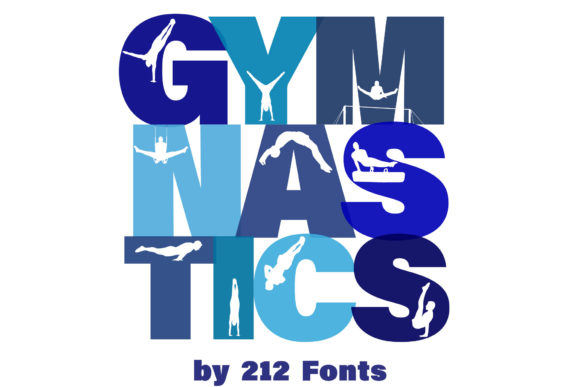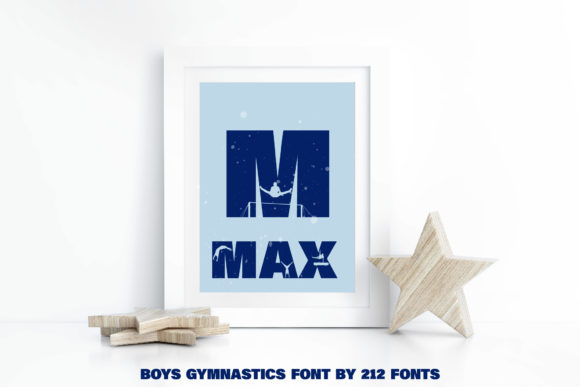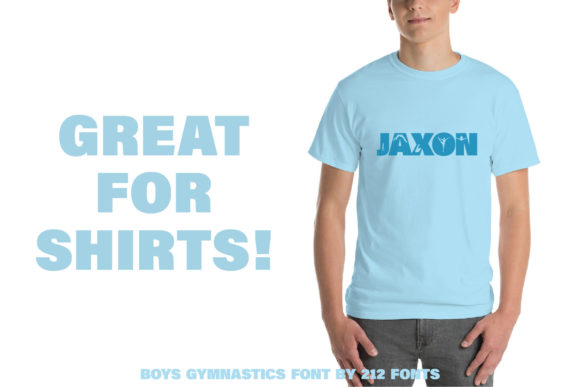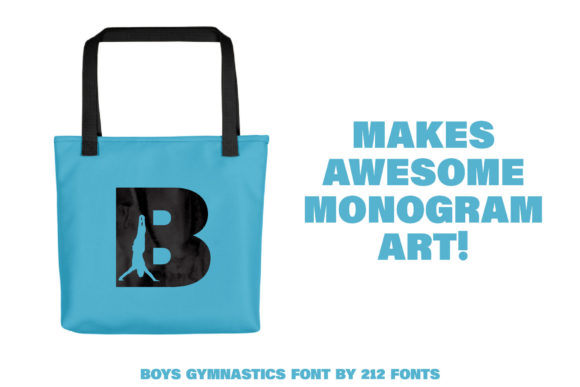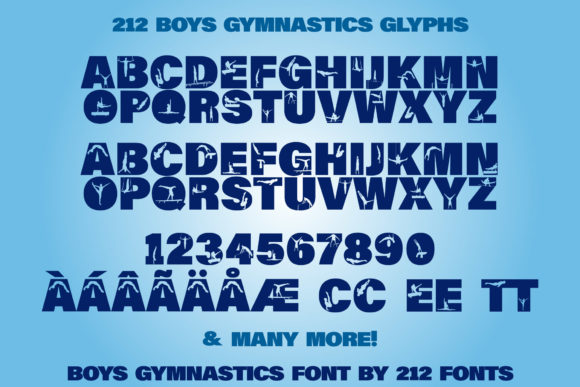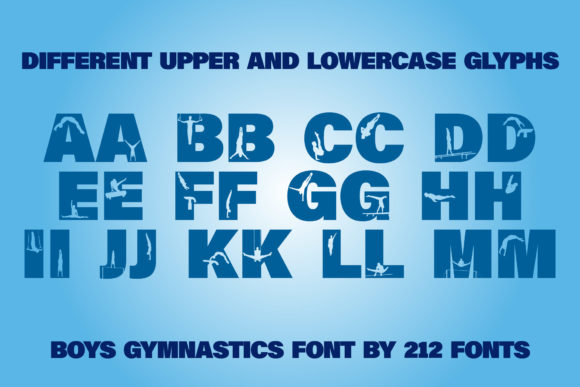
Introducing Boys Gymnastics Font: Elevate Your Designs with Style and Elegance
Are you a designer or crafter looking for a unique and stylish font to elevate your projects? Look no further than the Boys Gymnastics font, a decorative font that is sure to impress. With its original and stylish design, this font is perfect for a variety of applications, from crafting and scrapbooking to graphic design and digital art.
What Makes Boys Gymnastics Font Special?
Boys Gymnastics font is a PUA (Private Use Area) encoded font, which means that it offers a wide range of glyphs and swashes that can be easily accessed. This font is designed to provide a high level of versatility, making it perfect for designers and crafters who want to add a personal touch to their work.
Key Features of Boys Gymnastics Font
- PUA Encoded: The font is PUA encoded, which means that you can access all of the glyphs and swashes with ease.
- Stylish and Original Design: The font features a unique and stylish design that is sure to impress.
- Wide Range of Applications: The font is perfect for a variety of applications, including crafting, scrapbooking, graphic design, and digital art.
- Easily Accessible Glyphs and Swashes: The font offers a wide range of glyphs and swashes that can be easily accessed, making it perfect for designers and crafters who want to add a personal touch to their work.
Who Can Benefit from Boys Gymnastics Font?
The Boys Gymnastics font is perfect for a variety of designers and crafters, including:
- Scrapbookers: The font is perfect for scrapbooking and other paper crafting projects.
- Graphic Designers: The font is great for graphic design projects, including logos, brochures, and posters.
- Digital Artists: The font is perfect for digital art projects, including illustrations and graphics.
- Crafters: The font is great for crafters who want to add a personal touch to their projects, including knitting, sewing, and other crafts.
| Font Name | Boys Gymnastics Font |
| Author | 212 Fonts |
The Boys Gymnastics font is a stylish and original looking decorative font that is perfect for designers and crafters who want to elevate their projects with style and elegance. With its PUA encoded design and wide range of glyphs and swashes, this font is sure to impress. Whether you’re a scrapbooker, graphic designer, digital artist, or crafter, the Boys Gymnastics font is a great addition to your font collection.